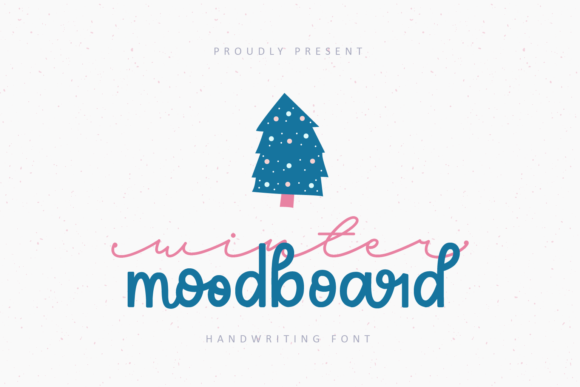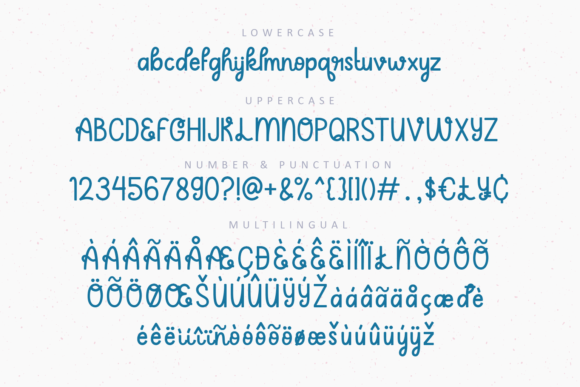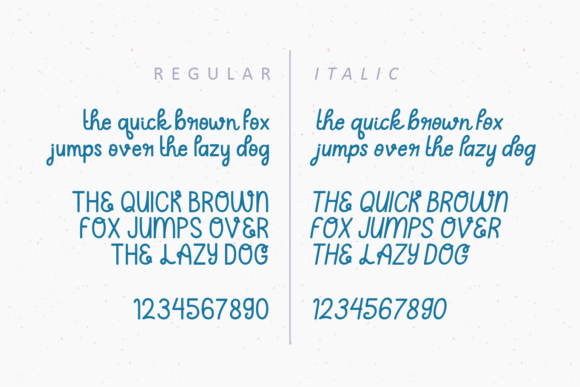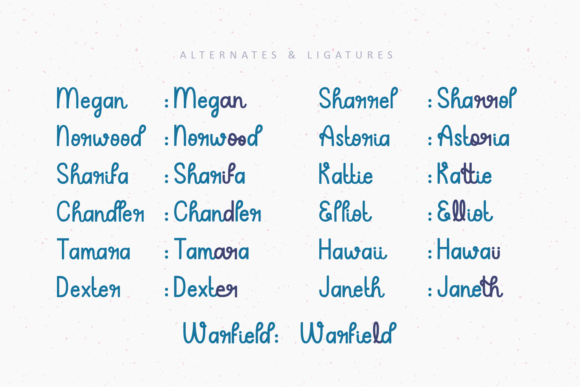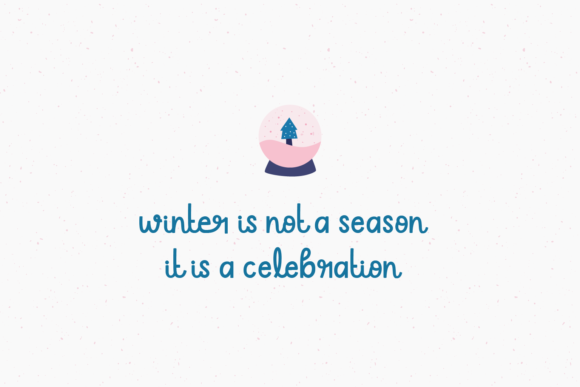
Winter Moodboard Font
About Winter Moodboard Font
Winter Moodboard is a delicate and vintage styled handwritten font. It will add a luxury spark to any design project that you wish to create!